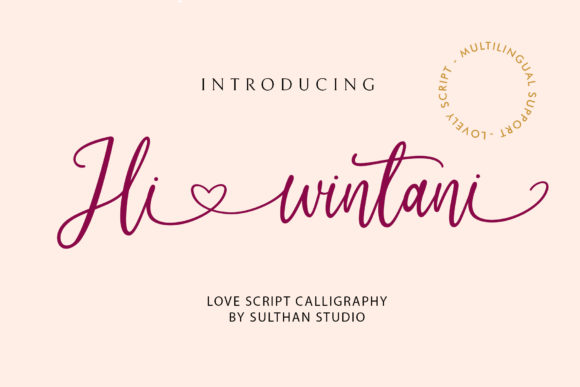
Hi Wintani Font
Journey into a world of charm and elegance with Hi Wintani, the enchanting script font that will make your designs shine brighter than the stars. Designed by the talented Sulthan Studio, Hi Wintani is a captivating creation that exudes romance and sweetness, with each character gracefully dancing along the baseline like a delicate ballerina.
Indulge in the luxury and sophistication that Hi Wintani brings to your projects, whether it's a heartfelt wedding invitation, an alluring branding campaign, or simply adding a touch of magic to your personal designs. This font is a symphony of artistry, its curves and flourishes harmonizing beautifully to create a visual masterpiece.
With Hi Wintani, you can effortlessly transform your words into works of art. Its PUA encoding grants you access to an array of glyphs and ligatures, allowing you to unleash your creativity and explore endless possibilities.
Make a statement with Hi Wintani, the ultimate font for invitations, weddings, and any occasion that calls for a touch of romance and elegance. Its versatility extends to branding, social media graphics, logos, and more, making it your go-to choice for captivating designs that leave a lasting impression.
Don't settle for ordinary fonts. Embrace the beauty and allure of Hi Wintani, and elevate your designs to new heights of sophistication. Let your words dance with joy, let your imagination soar, and create something truly unforgettable.